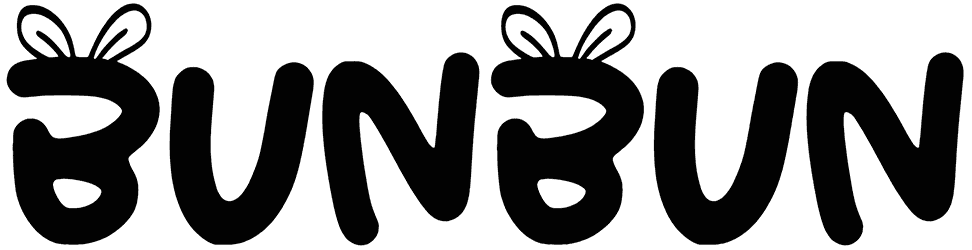
Bunbun Font
Maybe all your design needs to look adorable is bunny ears! For an easter poster, a kids’ notebook cover, or the like, you can use this bunny font with its sweet and soft mood. Bunbun font has two sets of capitals, but it doesn’t support lowercase letters and some numbers. Test this easter font and spotlight your artistic skills.